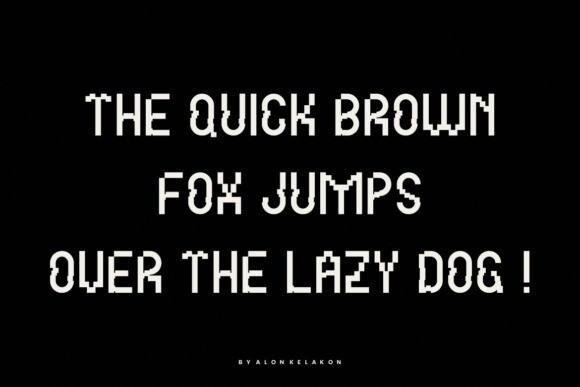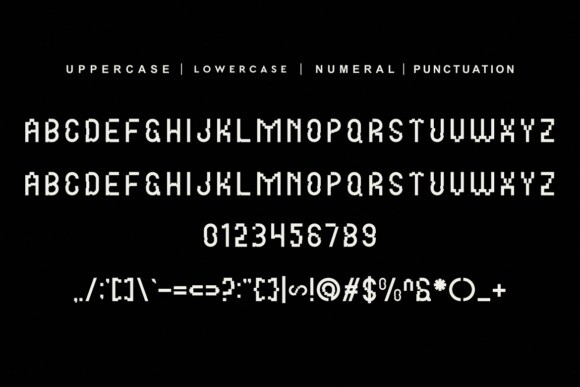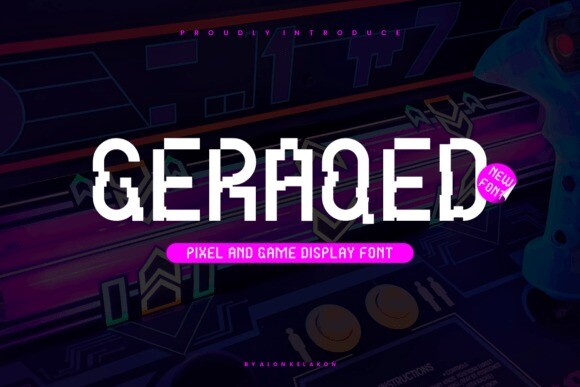
Geraqed Font
Designer: alonkelakon
Geraqed Font is unique . Ready to use for your design like labeling, movie sceen, poster, movie title, gigs, album covers, logos, and much more.